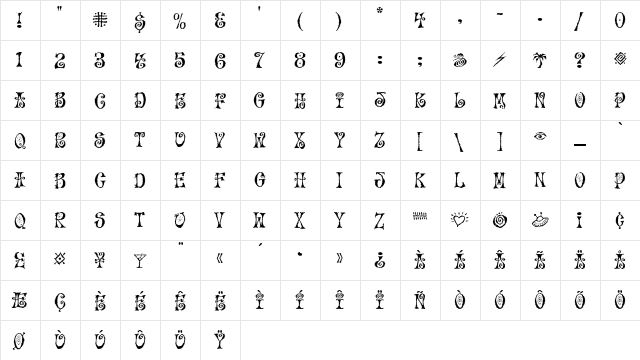
MoFunkyFresh Regular
Design Context for MoFunkyFresh Typeface
MoFunkyFresh trades formality for fun, with bouncy, characterful letterforms that bring warmth and energy to any project.
Great for children's books, toy packaging, family event branding, and casual consumer-facing design.
Font Pairing: Pairs well with a rounded or humanist sans for body copy, maintaining the friendly tone without relying on MoFunkyFresh to carry extended reading.
Pro Tip: Avoid using MoFunkyFresh for long passages of text — it works best for headlines, labels, and short calls to action.